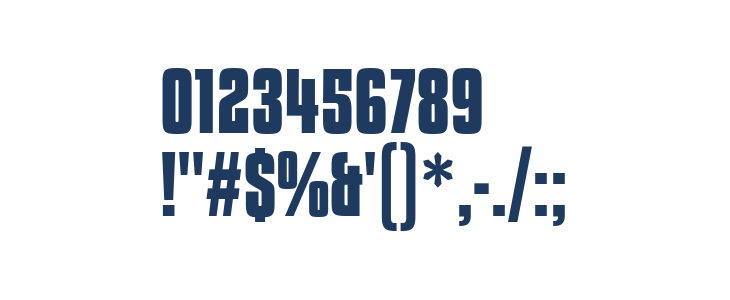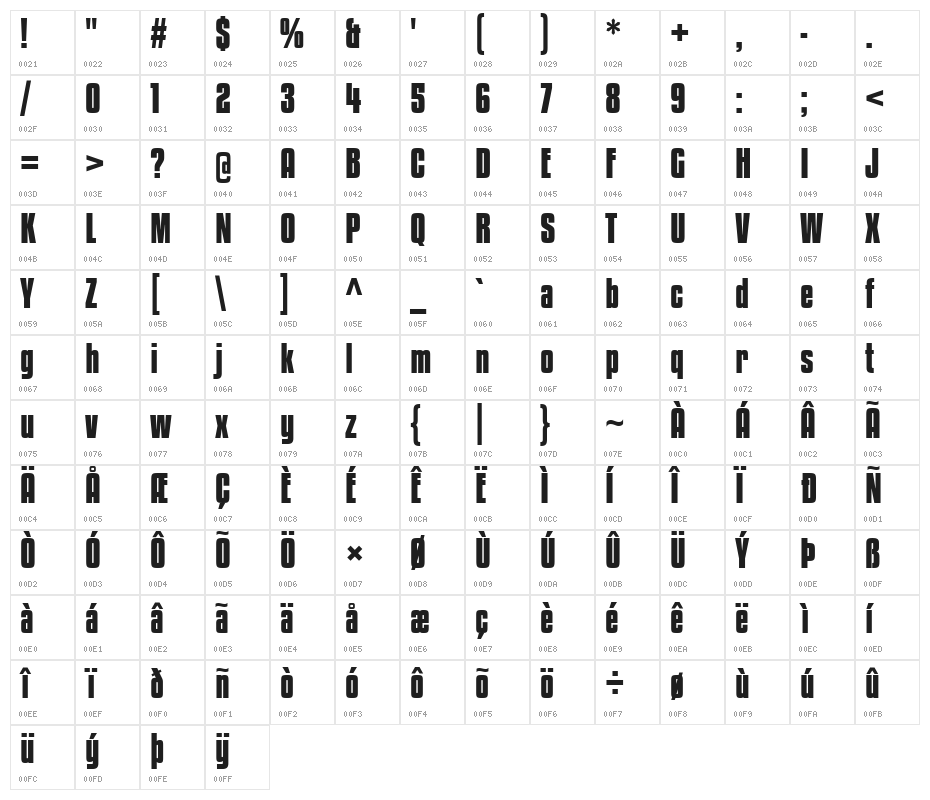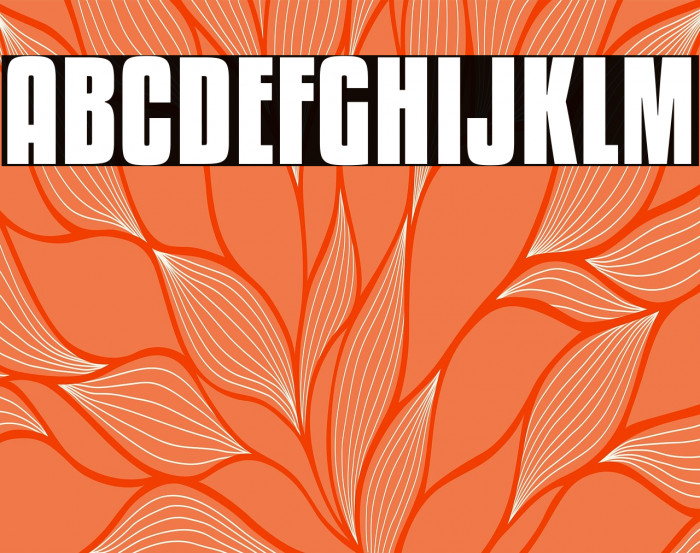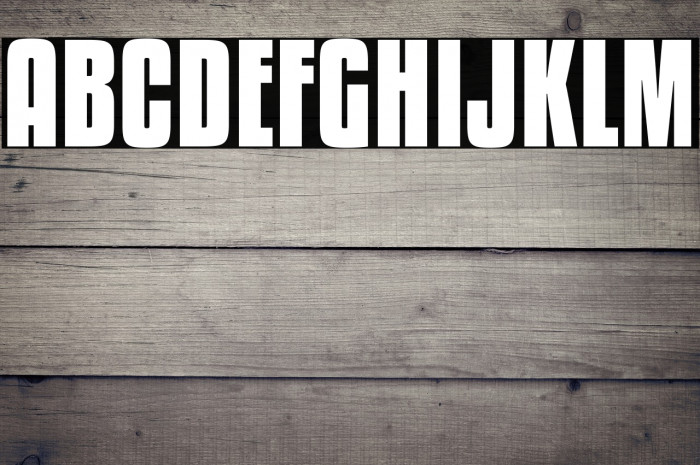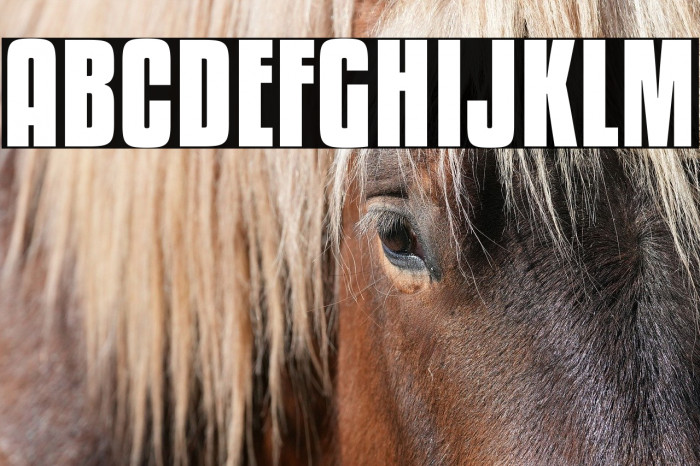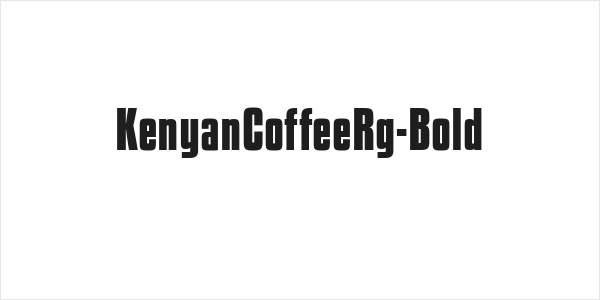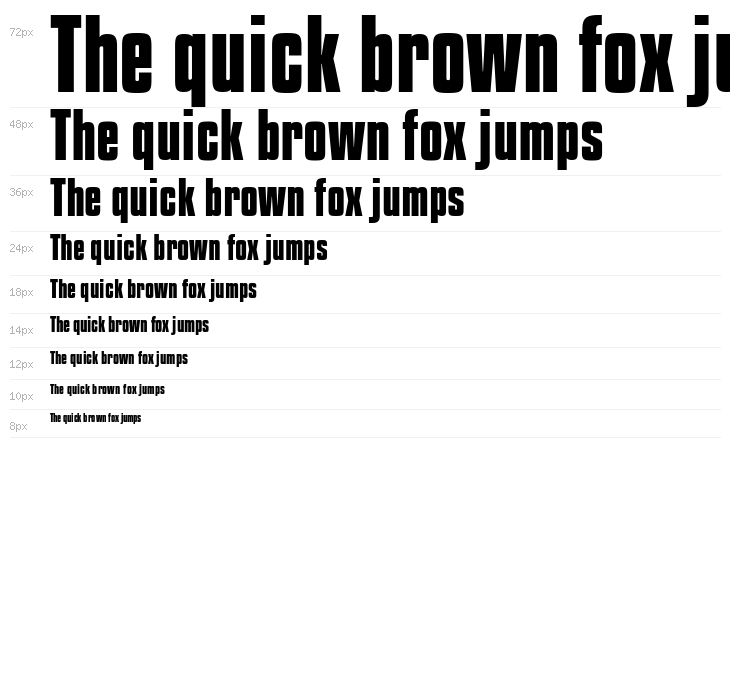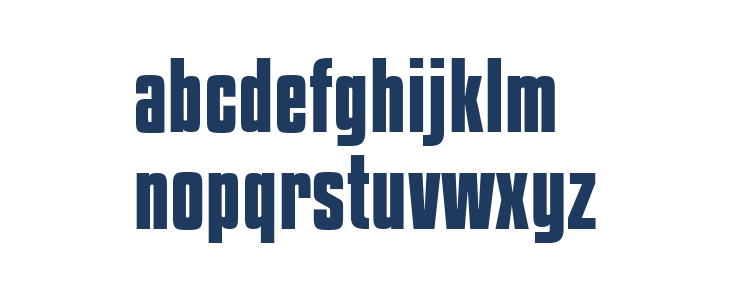
KenyanCoffeeRg-Bold Font
KenyanCoffeeRg-Bold Description
This font is a bold and impactful typeface with a strong presence. It features thick, block-like characters that convey a sense of strength and confidence. The uppercase letters are particularly striking, with a uniform height and width that create a cohesive look. The lowercase letters maintain the boldness of the uppercase, ensuring readability and consistency across different text sizes. The numerals are equally bold, making them stand out in any context. Special characters are designed with the same attention to detail, ensuring they integrate seamlessly with the rest of the font. This typeface is ideal for making a statement, whether in headlines, posters, or branding materials.
| Proposed Projects | Ideal for posters, headlines, branding, and any project requiring a strong visual impact. |